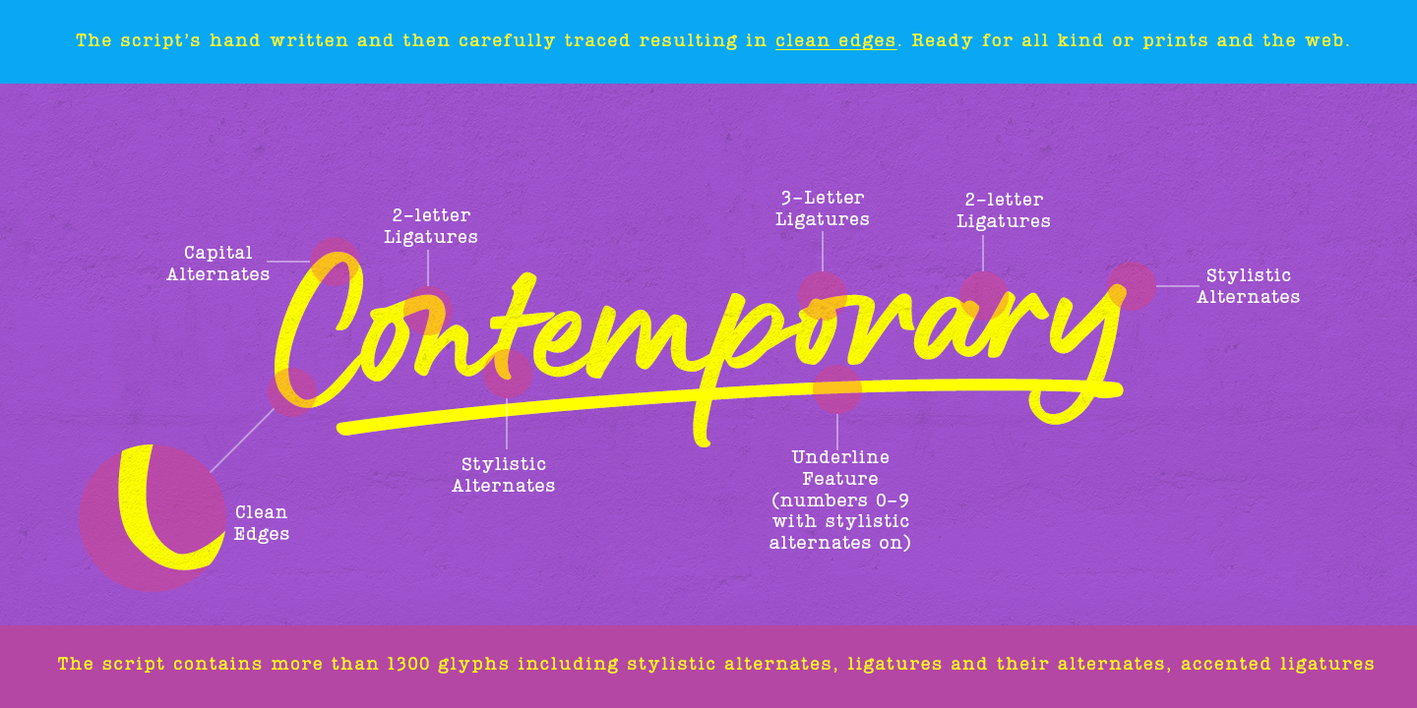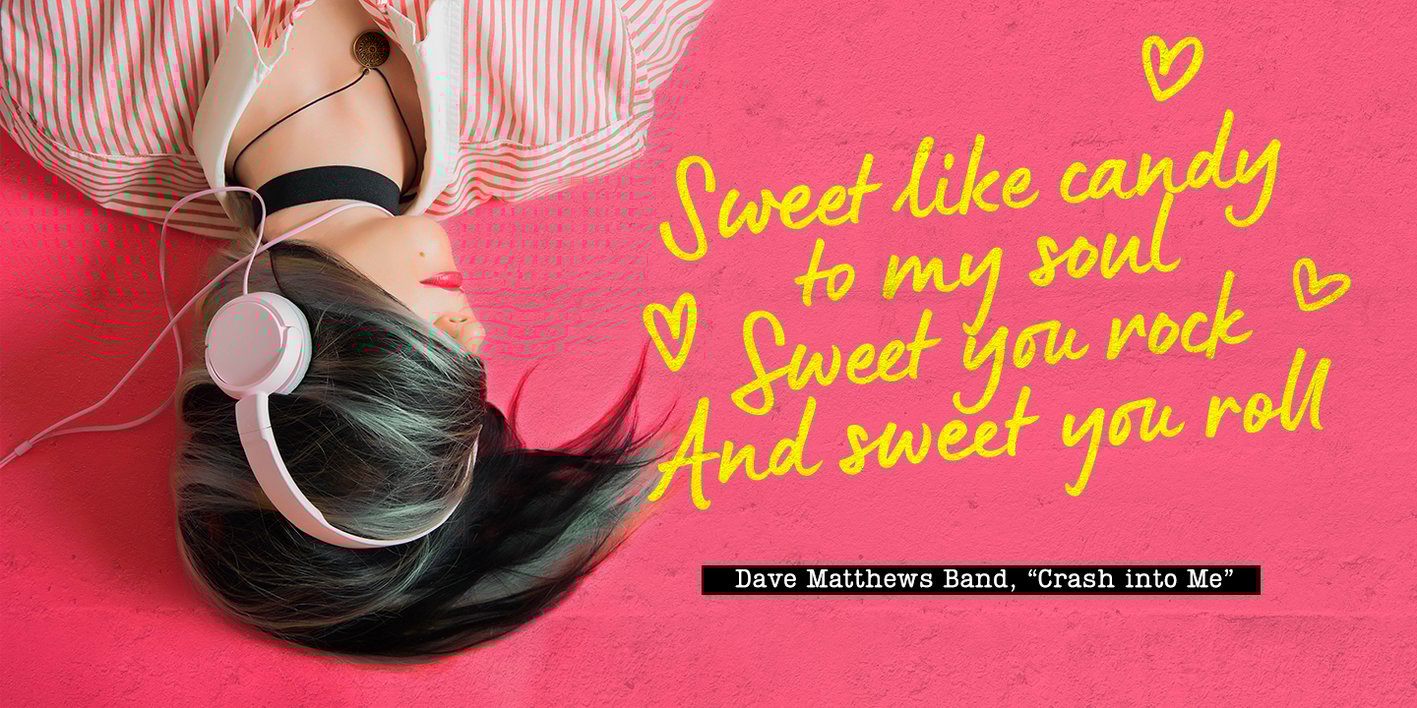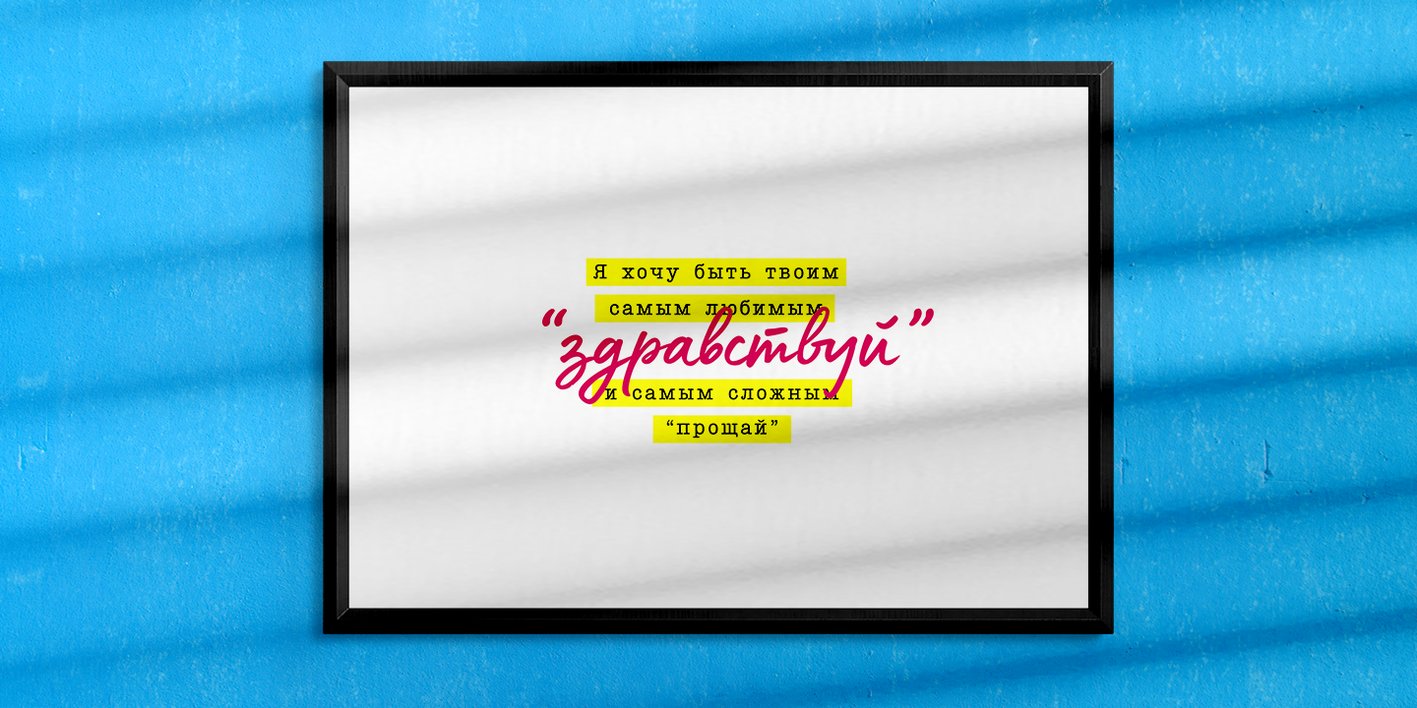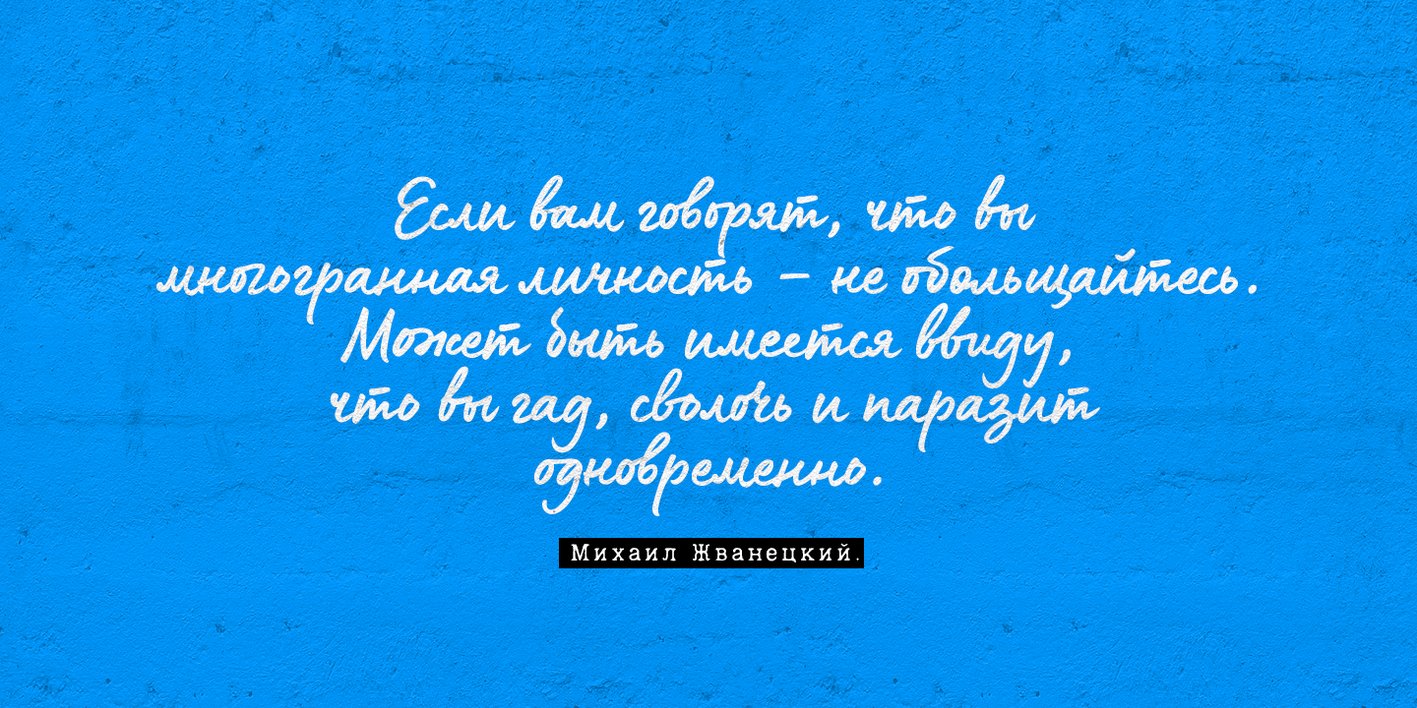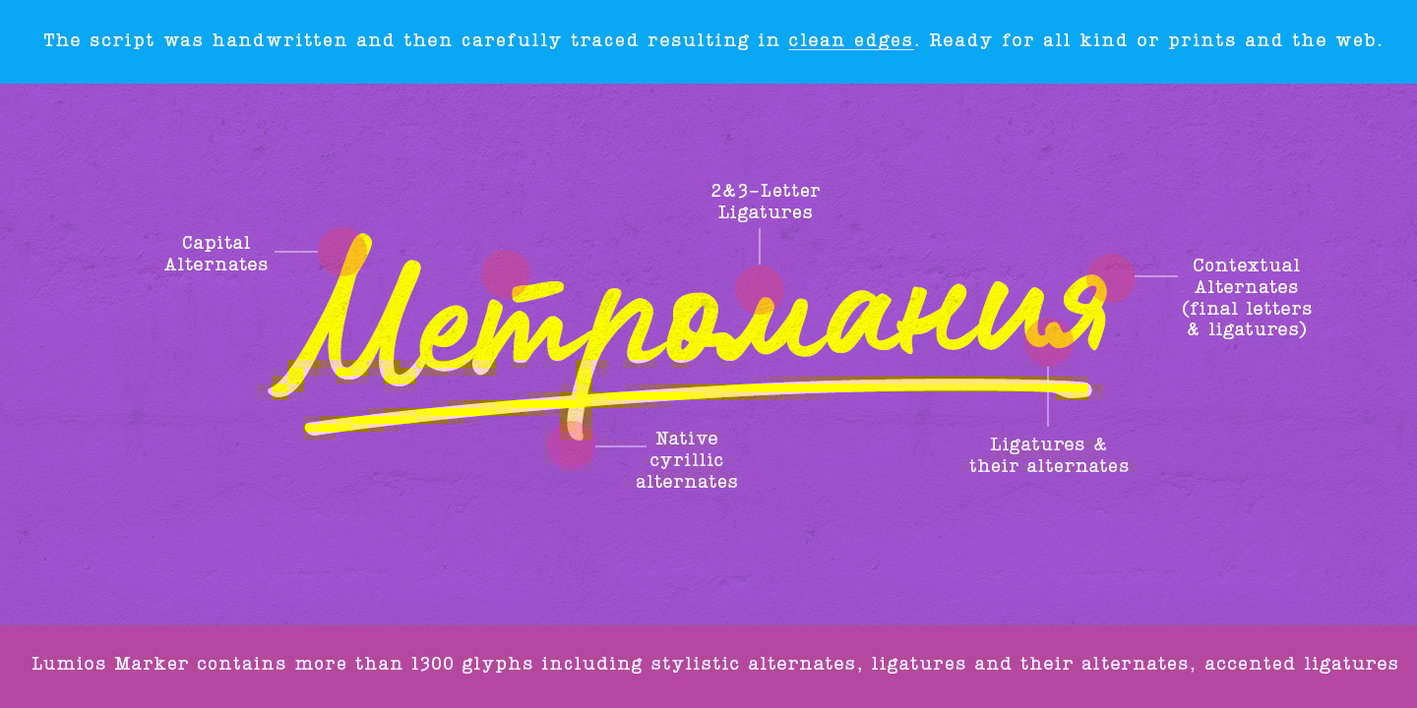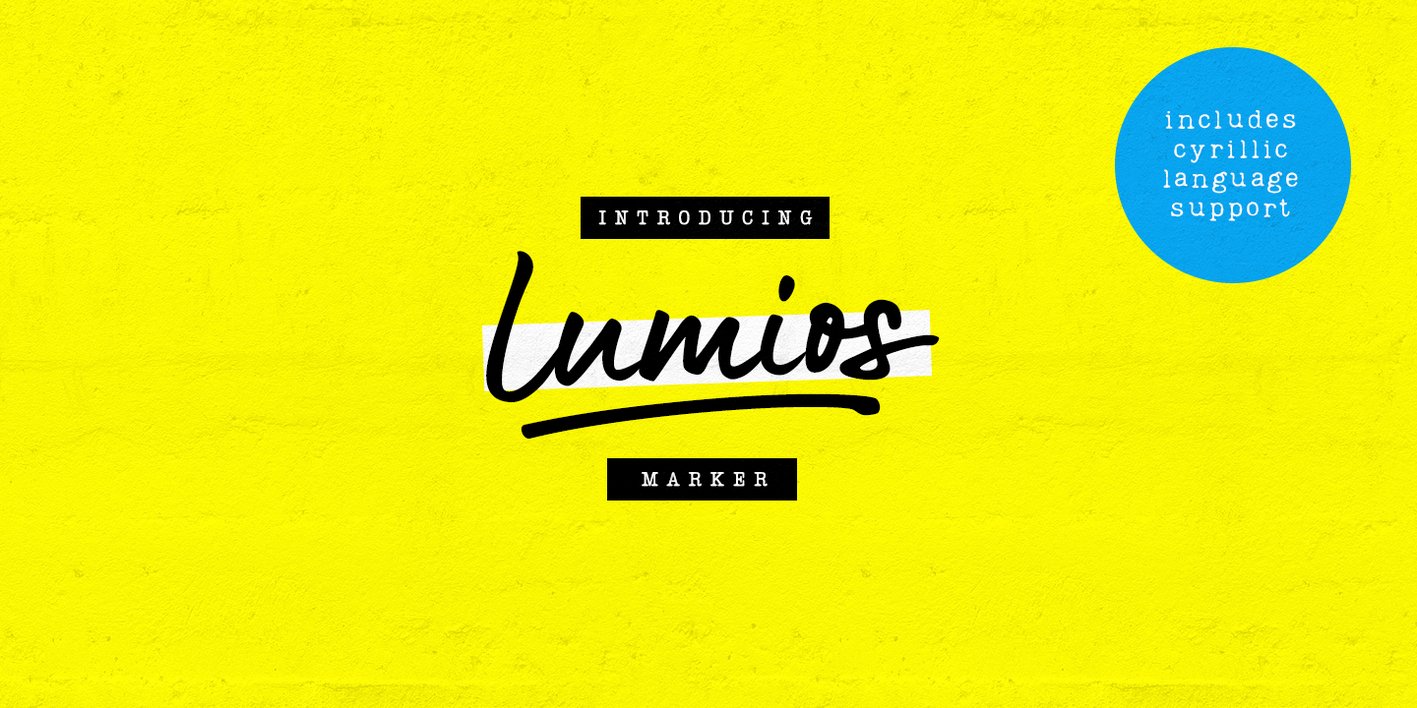
Lumios Marker Font
Lumios Marker Font is perfect for creative workshop signage, art studio branding, children's educational materials, craft project instructions, whiteboard presentation graphics, creative brainstorming sessions, art class handouts, DIY tutorial designs, maker space communications, creative agency portfolios, artistic event promotions, and hands-on projects that require authentic, marker-inspired typography with creative energy and artistic spontaneity.
What makes Lumios Marker Font so exciting is its authentic creative energy and artistic spontaneity that embodies the vibrant spirit and hands-on authenticity of marker-based artwork and creative expression. This typeface features bold, marker-drawn letterforms with organic characteristics and artistic variations that evoke the immediate energy of brainstorming sessions, the creativity of art studios, and the kind of spontaneous artistic expression that defines authentic creative work. The font's artistic character and creative appeal make it perfect for educational brands and creative organizations that want to communicate inspiration, hands-on learning, and the kind of artistic authenticity that encourages creative exploration and artistic development.
Lumios Marker Font typically comes in multiple weights and styles including Light, Regular, Medium, and Bold variations. Many versions also include artistic ornaments, creative decorative elements, and marker-inspired symbols that enhance the font's artistic functionality and provide designers with comprehensive tools for creating authentic, hand-drawn typography compositions that capture the spontaneous energy of marker artwork and creative expression.
Whether you're designing educational materials, creative workshop promotions, or artistic community communications, Lumios Marker Font delivers exceptional creative authenticity and artistic energy that connects with audiences who appreciate hands-on learning and creative expression. Its bold, hand-drawn appearance works beautifully with vibrant color palettes and creative imagery, creating designs that feel both artistically genuine and professionally inspiring for creative learning environments.
The artistically crafted letterforms of Lumios Marker Font demonstrate deep understanding of creative typography and artistic expression principles. Each character has been designed to capture the spontaneous energy and authentic texture of real marker artwork while maintaining excellent readability, making it particularly valuable for educational communications where typography must inspire creativity and support hands-on learning experiences that encourage artistic exploration and creative development.